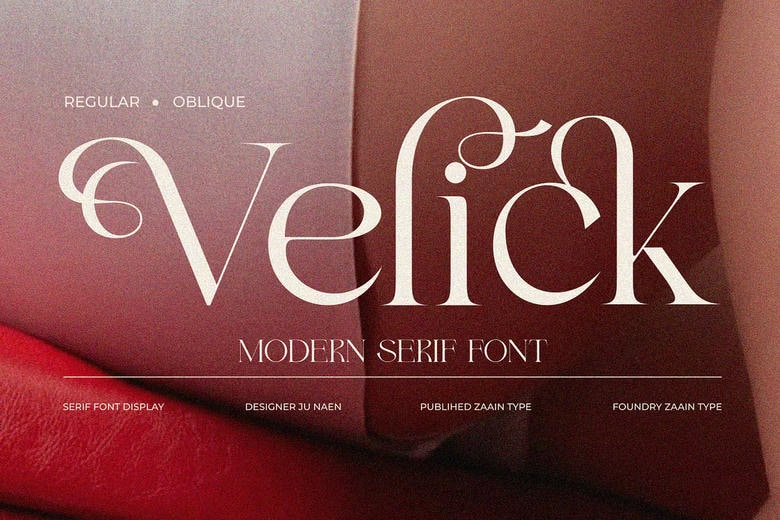
Velick Font
Velick is a modern serif font that blends classic elegance with a fresh, contemporary look. Its refined serifs, balanced shapes, and sophisticated letterforms add a touch of luxury to your designs.
Velick works well for branding, fashion, editorials, logos, magazines, invitations, and premium packaging. Its elegant details and versatile style give your creative projects a unique and stylish feel.
Velick Serif Font